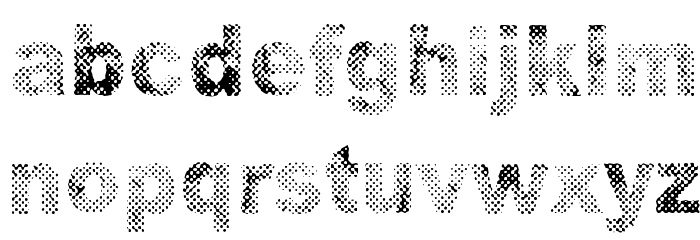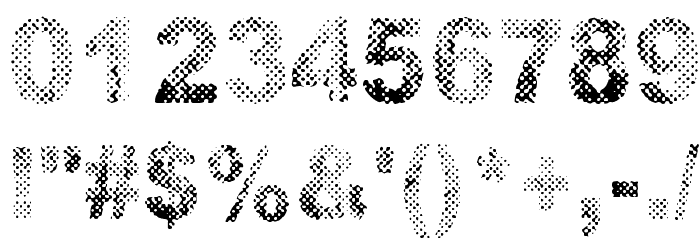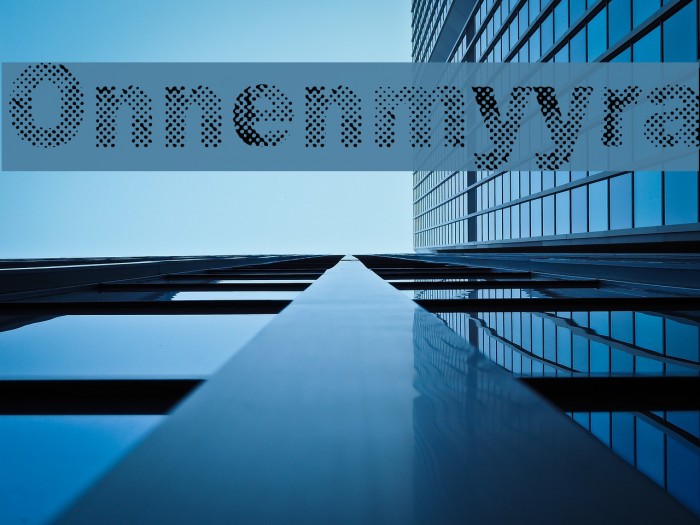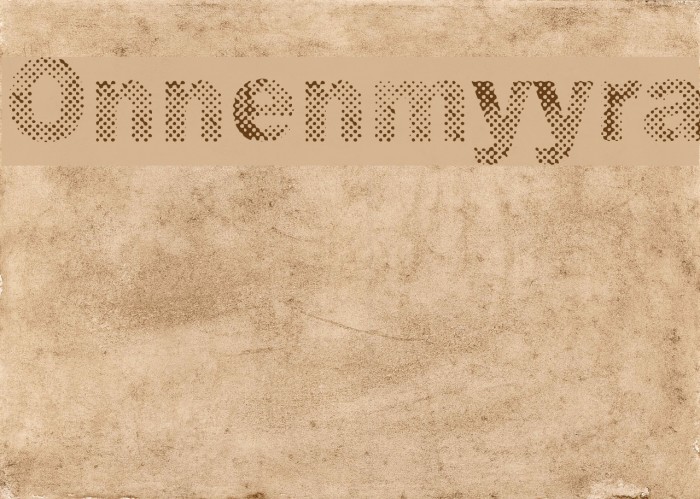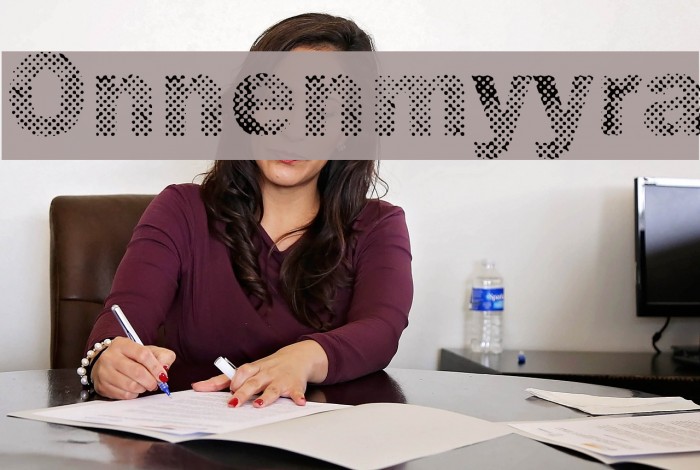
Onnenmyyra Font
This font features a unique halftone pattern, giving it a textured, dotted appearance. The characters are bold and have a substantial presence, with each letter and number filled with a consistent dot pattern that creates a visually striking effect. The uppercase and lowercase letters maintain a uniform style, while the numerals and special characters follow the same design principle. This font's distinct style makes it ideal for projects that require a bold, eye-catching look.
A bold, halftone-patterned font with a textured, dotted appearance.
- Proposed Projects: Ideal for posters, album covers, branding, and any design needing a bold, textured look.